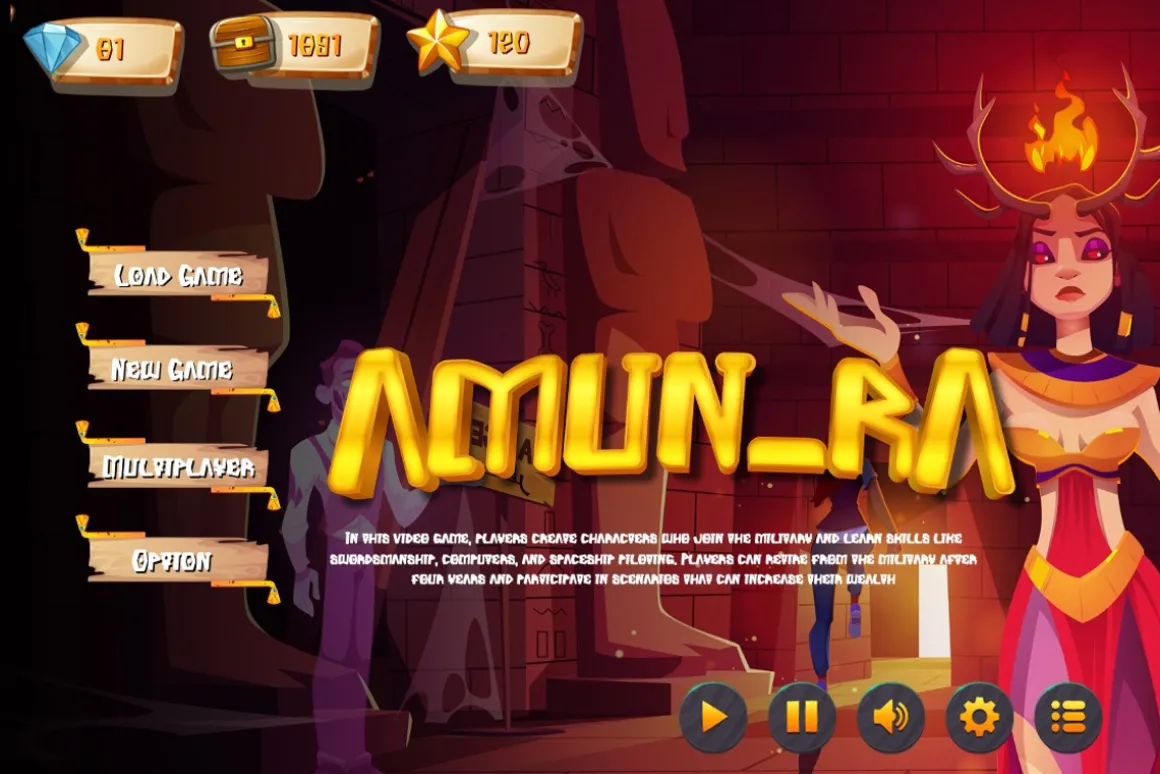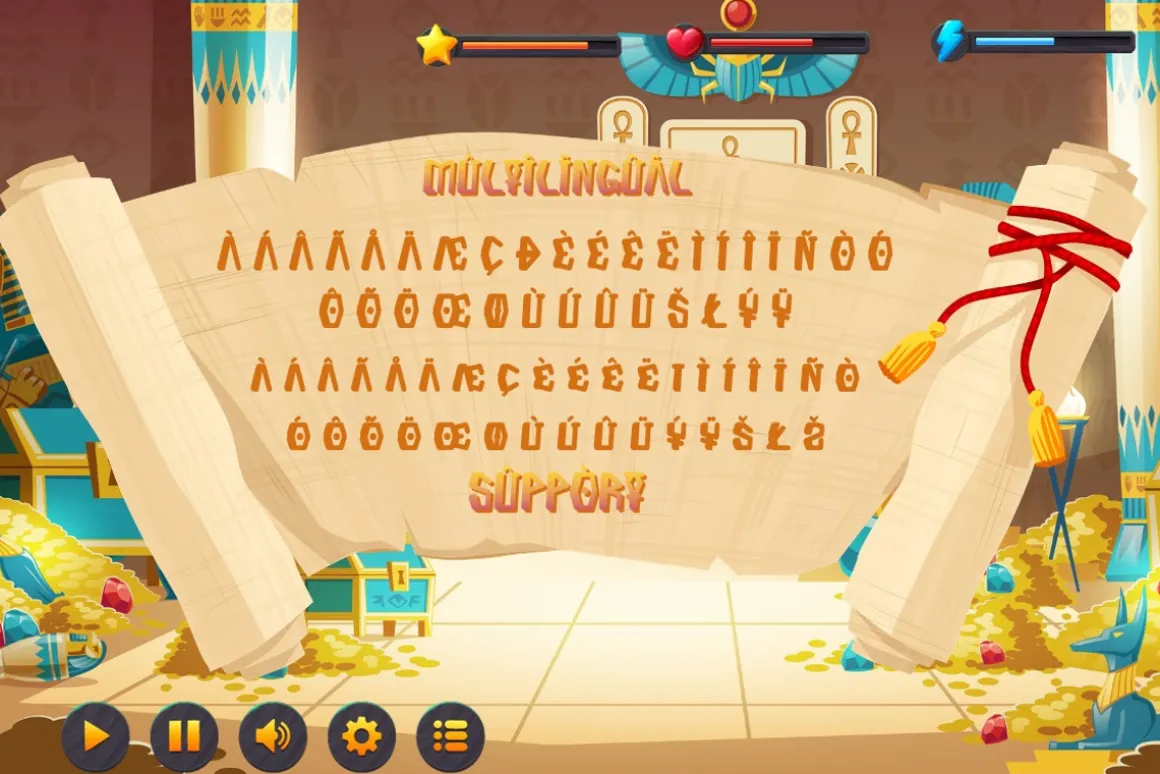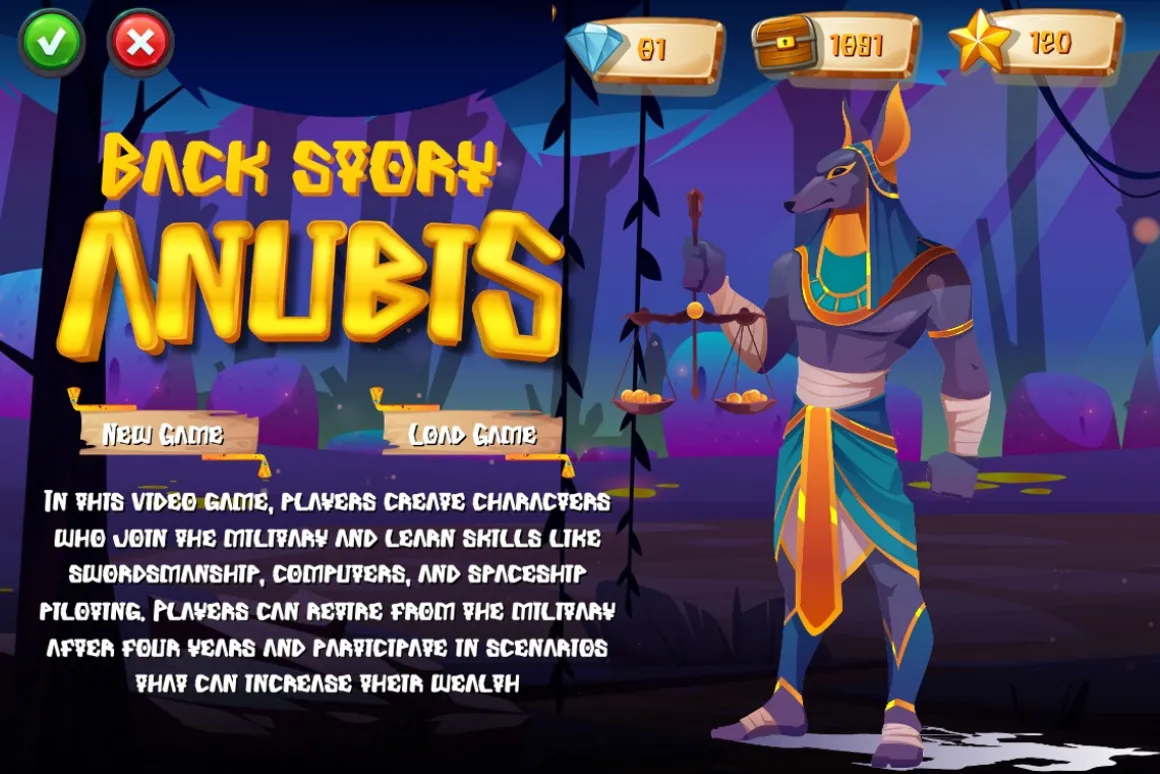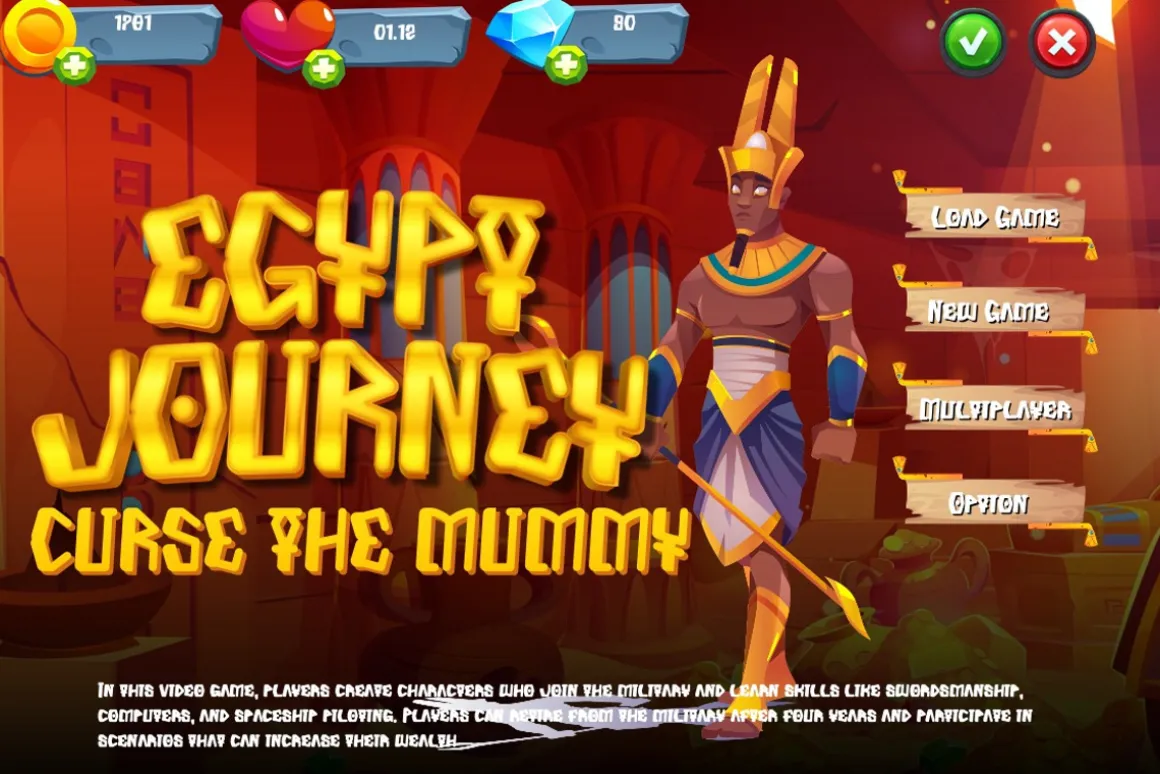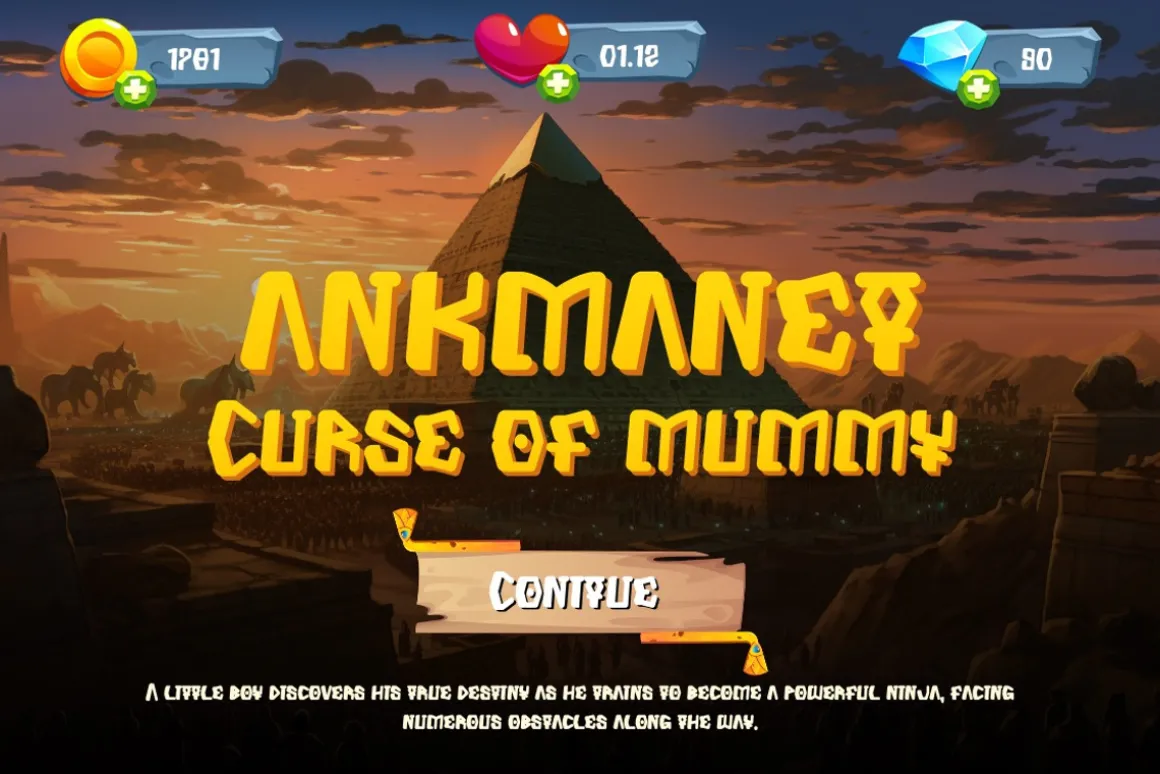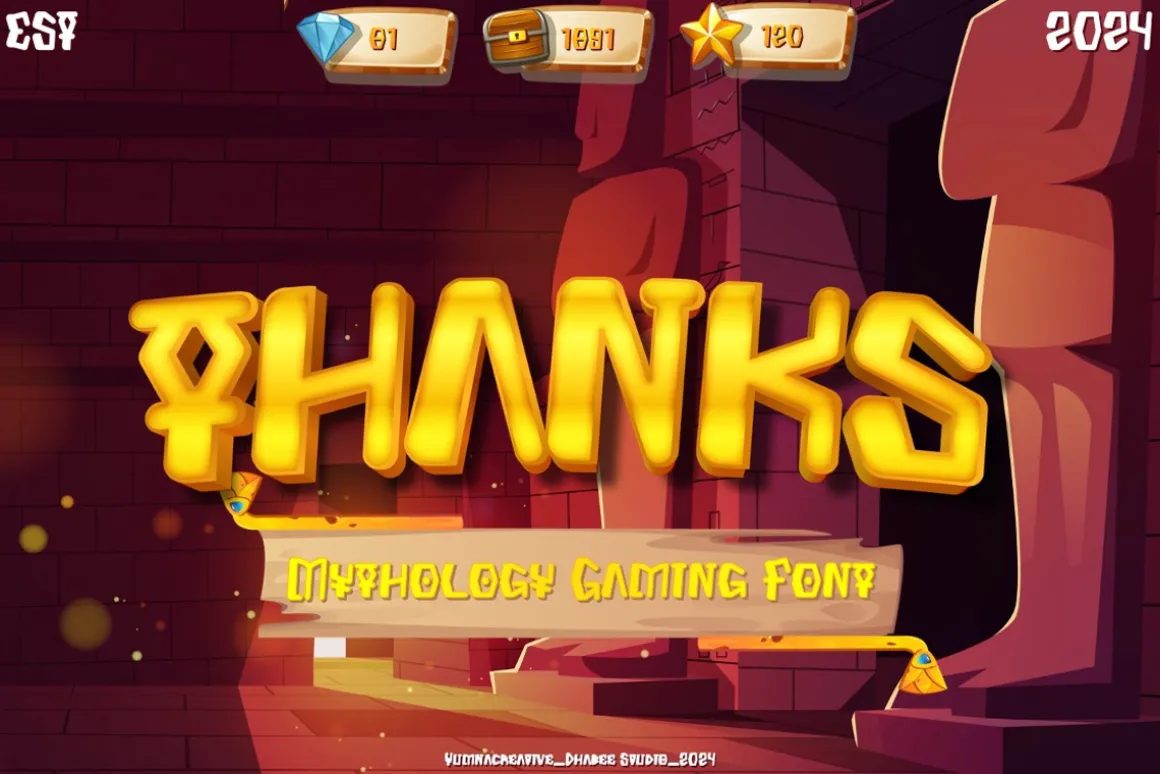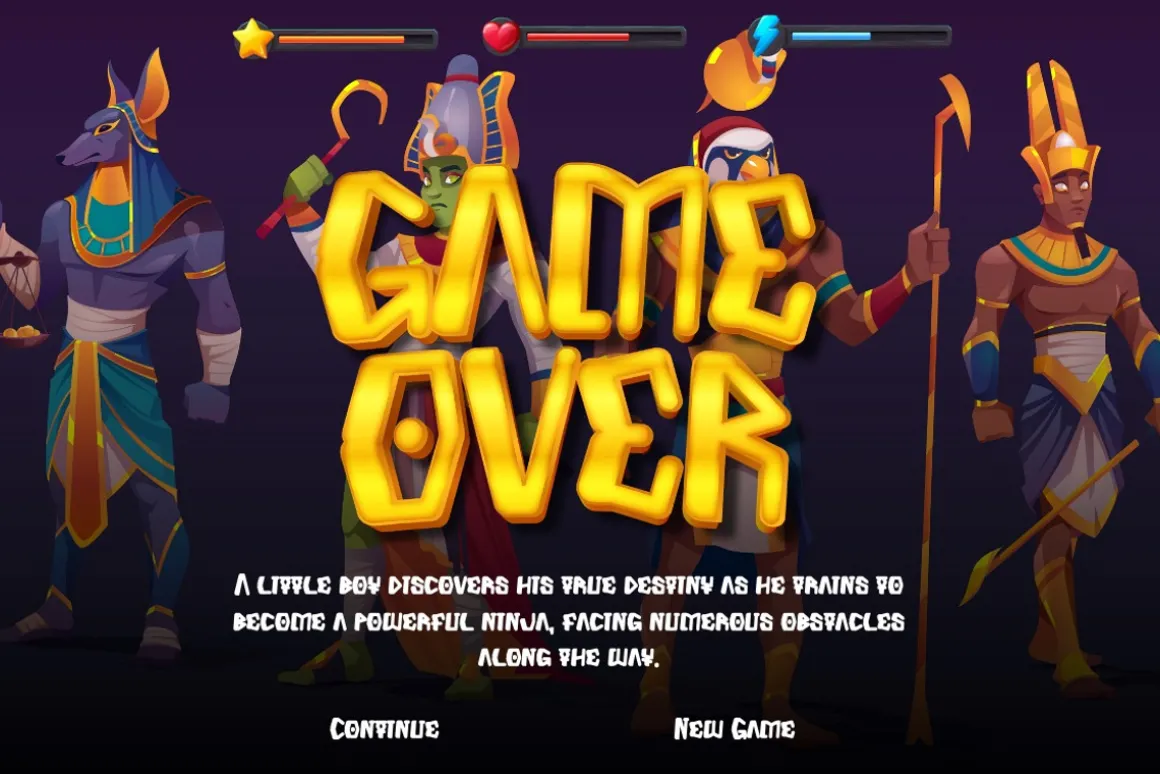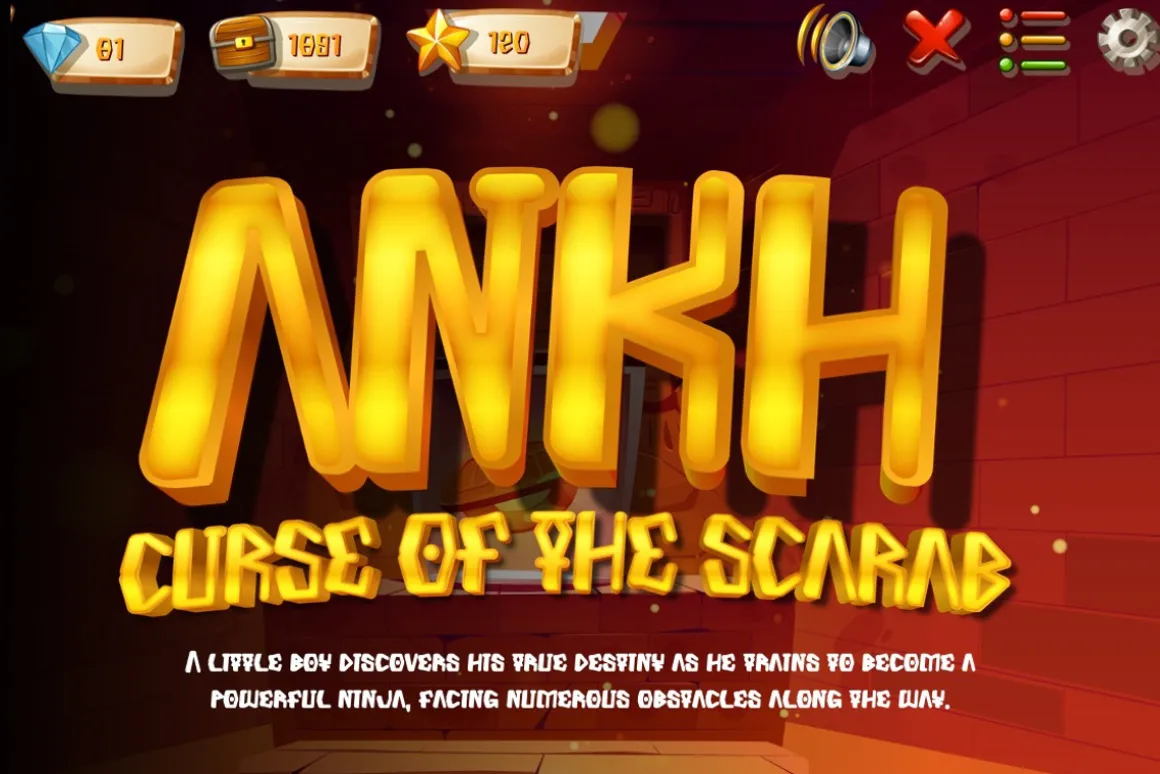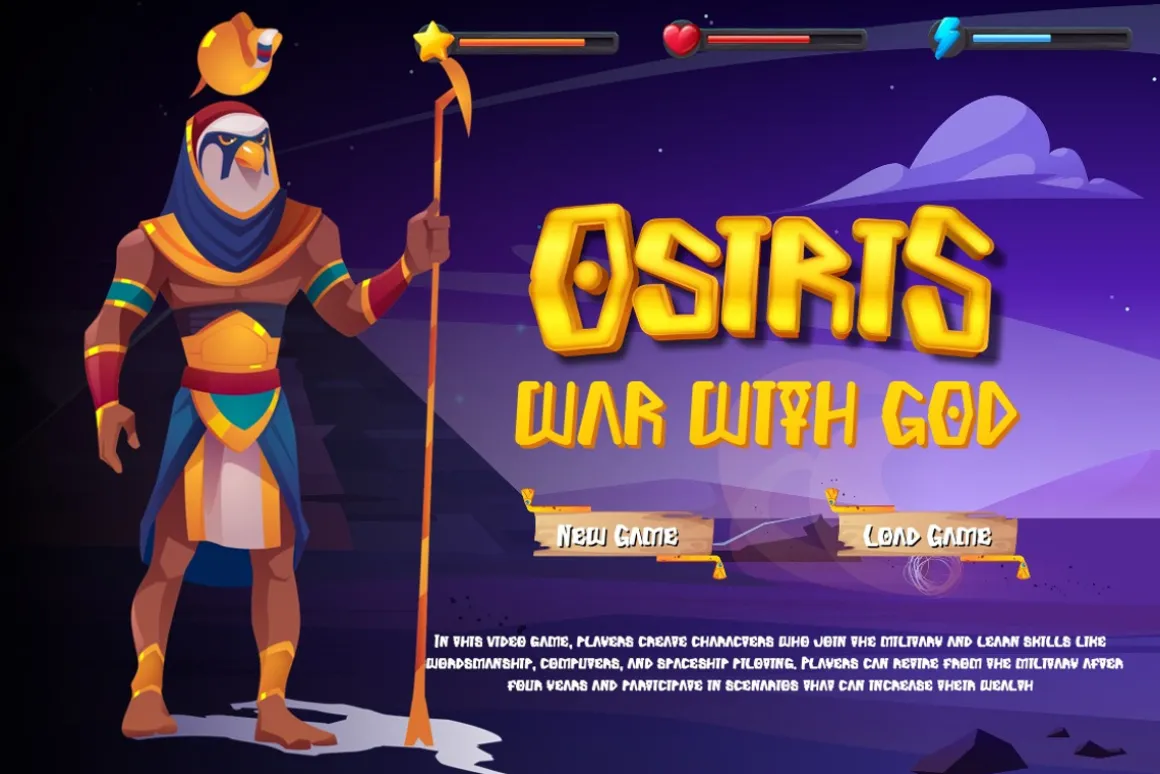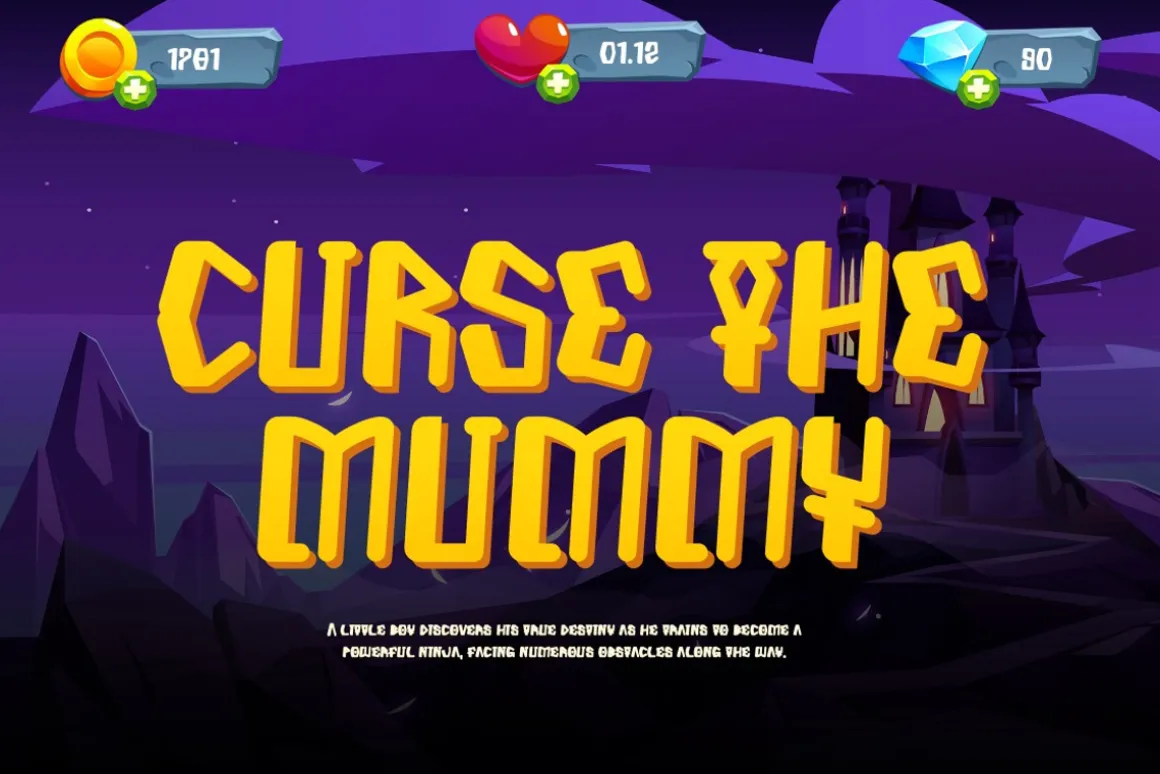
IntroducingTonutsa – Mythology Gaming Font
This Font is a delicate, elegant and flowing handwritten font. It has beautiful and well as a unique blend of ligatures a letter, so that the authors compose it with a and little swirly embedding, so that a modern font is formed and ready to make a statement by adding elegant and unique flair to your next design project. Add it to your most creative ideas and notice how it makes them come alive!